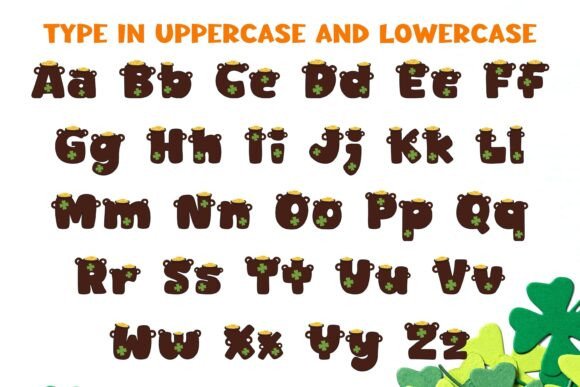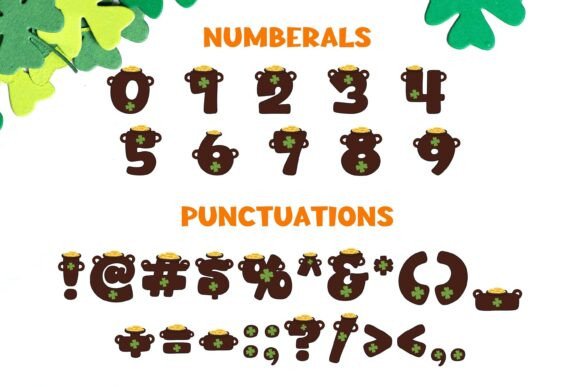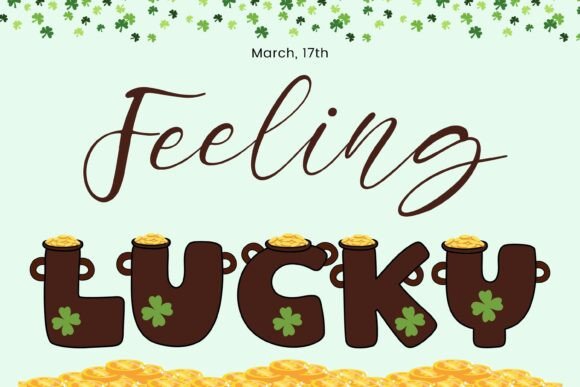
Introducing Gold Pot: The Ultimate Color Font for St. Patrick’s Day Designs
Are you looking for a font that can add a touch of magic to your St. Patrick’s Day-themed designs? Look no further than Gold Pot, a vivid and playful color font that’s sure to enchant your audience. With its captivating character and versatility, Gold Pot is the perfect addition to any design project, from t-shirt designs to digital imprints, craft creations, decorative cards, and more.
The Perfect Font for St. Patrick’s Day Designs
Gold Pot is specifically designed to bring a touch of whimsy and fun to your St. Patrick’s Day designs. Its unique and playful character makes it perfect for creating eye-catching designs that will stand out from the crowd. Whether you’re designing for a client or creating something for personal use, Gold Pot is sure to impress.
With Gold Pot, the design possibilities are endless. Use it to create:
- T-shirt designs that will make your customers smile
- Digital imprints that will add a touch of magic to any project
- Craft creations that will stand out from the crowd
- Decorative cards that will delight your friends and family
- Large-scale posters and signs that will make a statement
Why Choose Gold Pot?
So why choose Gold Pot over other fonts? Here are just a few reasons:
- Unique and playful character: Gold Pot has a one-of-a-kind character that’s sure to add a touch of whimsy to your designs.
Get Ready to Experience the Magic of Gold Pot
In conclusion, Gold Pot is the ultimate color font for St. Patrick’s Day designs. With its unique and playful character, multiple formats, and included SVG and PNG files, Gold Pot is the perfect choice for designers and crafters alike. So why wait? Download Gold Pot today and start creating your own magical designs.